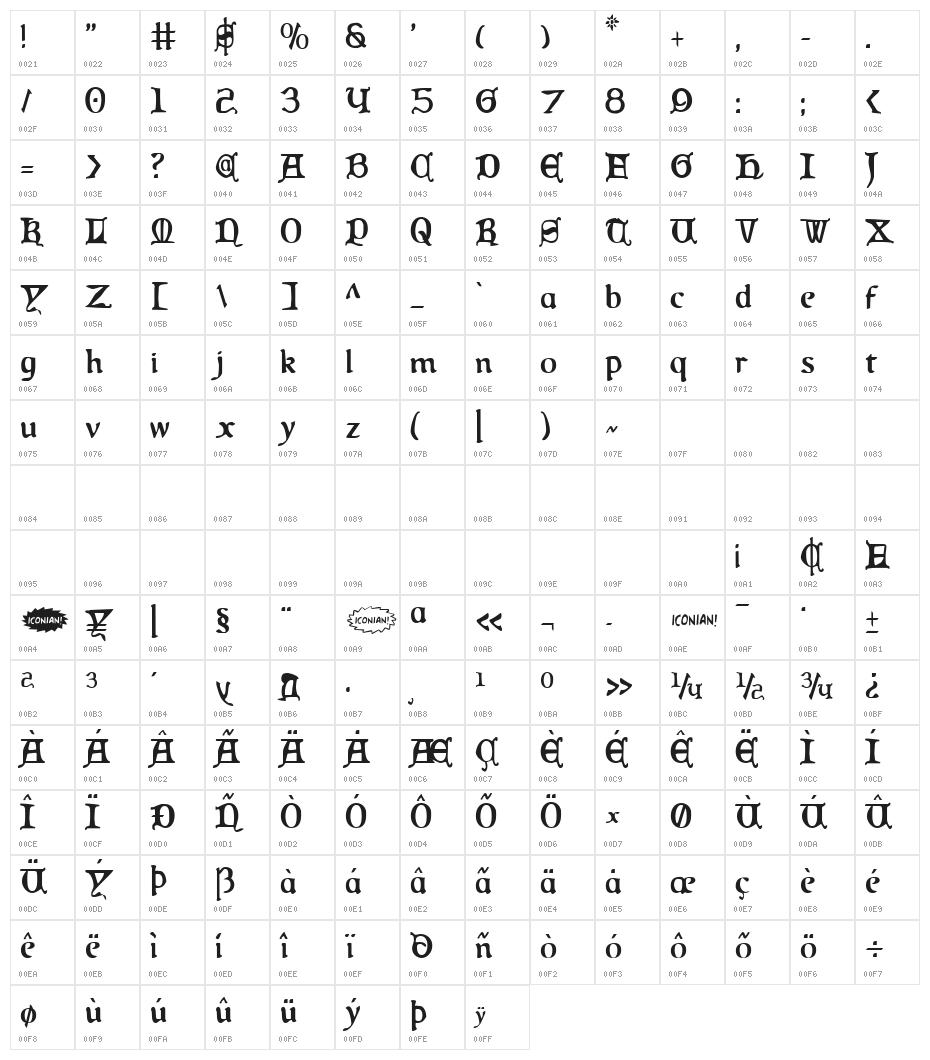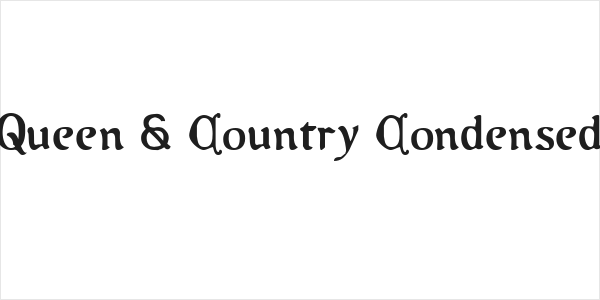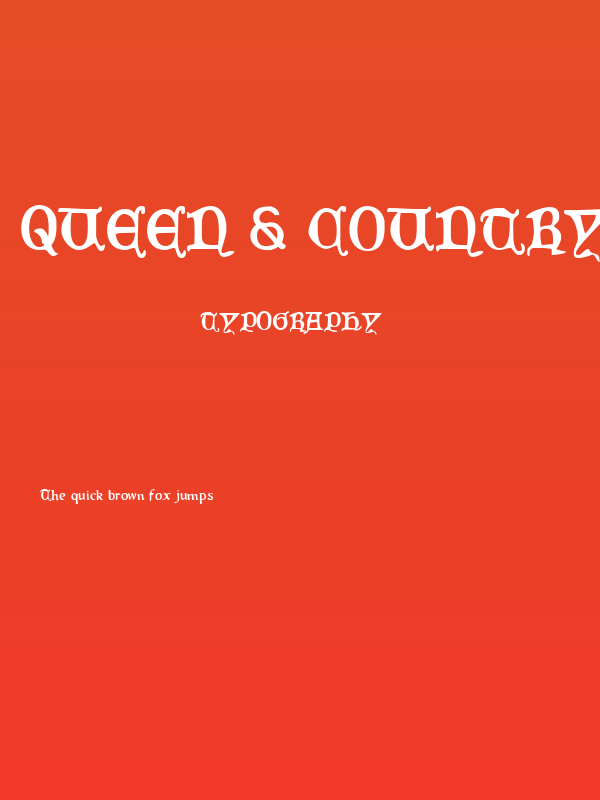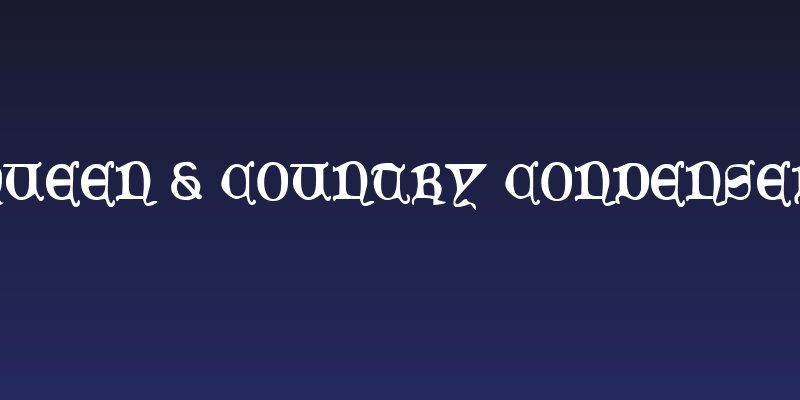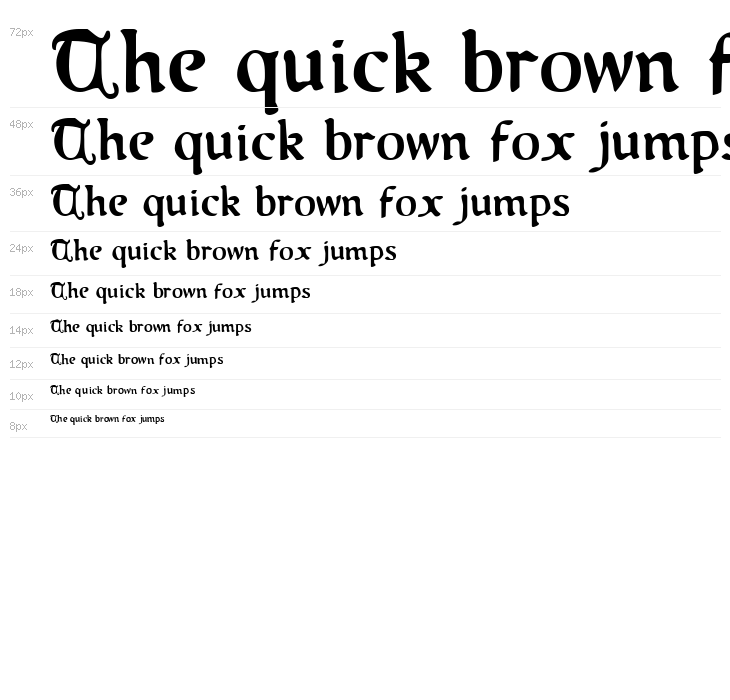
Queen & Country Condensed Font
Queen & Country Condensed Description
This font features a bold and condensed style with a strong presence. The uppercase letters exhibit a unique blend of sharp angles and curves, creating a dynamic and eye-catching appearance. The lowercase letters maintain a consistent weight, providing a harmonious balance between the characters. The numerals are distinct and easily readable, while the special characters add a touch of flair with their intricate designs. Overall, this font combines traditional elements with a modern twist, making it suitable for a variety of creative projects.
| Proposed Projects | Ideal for posters, branding, and headlines where a strong visual impact is desired. |